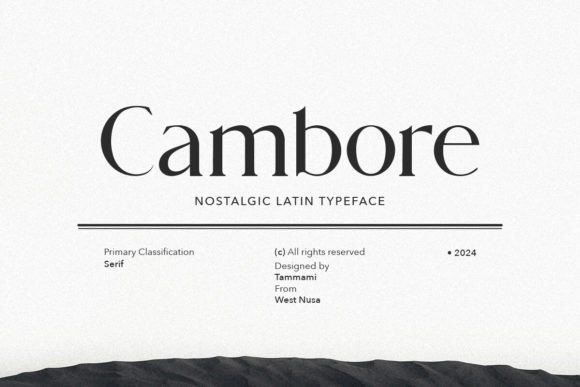
Cambore Font: Elevate Your Brand with a Touch of Classic Latin Elegance
In the world of typography, fonts play a crucial role in shaping the identity of a brand. A well-chosen font can instantly convey a sense of style, sophistication, and professionalism. If you’re looking for a font that embodies these qualities, look no further than Cambore – Latin Serif. This exquisite font seamlessly blends a touch of classic Latin serif style with a dash of retro elegance, making it an ideal choice for branding purposes.
What is Cambore Font?
Cambore Font, also known as Cambore – Latin Serif, is a stunning typeface that draws inspiration from traditional Latin serif fonts. Its unique design combines the classic elements of serif typography with a modern twist, resulting in a sophisticated and elegant font. The font features subtle rounded edges, refined lines, and a distinctive character that sets it apart from other serif fonts.
Key Features of Cambore Font
Cambore Font boasts several key features that make it an exceptional choice for branding and design projects. Some of its notable features include:
- Classic Latin Serif Style: Cambore Font pays homage to traditional Latin serif typography, evoking a sense of timelessness and sophistication.
- Retro Elegance: The font’s subtle rounded edges and refined lines give it a touch of retro charm, making it perfect for brands looking to convey a sense of nostalgia and luxury.
- Formal and Sophisticated: Cambore Font exudes a sense of formality and sophistication, making it an ideal choice for branding purposes, particularly in the luxury, fashion, and high-end industries.
- Versatile: The font is highly versatile and can be used for a wide range of design projects, from logos and wordmarks to headings and body text.
Why Choose Cambore Font for Your Brand?
With so many fonts available, why should you choose Cambore Font for your brand? Here are a few compelling reasons:
- Unique Identity: Cambore Font’s distinctive character and elegant design help create a unique identity for your brand, setting you apart from competitors.
- Professionalism: The font’s sophisticated and formal appearance conveys a sense of professionalism, making it perfect for businesses looking to establish a strong brand presence.
- Emotional Connection: Cambore Font’s retro elegance and classic Latin serif style evoke a sense of nostalgia and luxury, helping to create an emotional connection with your target audience.
- Scalability: The font is highly scalable and can be used for various design projects, from business cards to billboards.
How to Use Cambore Font Effectively
To get the most out of Cambore Font, here are some tips on how to use it effectively:
- Pair it with Other Fonts: Combine Cambore Font with other fonts to create a unique typography system that reflects your brand’s personality.
- Use it for Headings and Titles: Take advantage of Cambore Font’s elegant design by using it for headings and titles, creating a strong visual hierarchy in your design.
- Experiment with Colors: Try pairing Cambore Font with different colors to create a distinct brand identity that resonates with your target audience.
Cambore Font in the Digital Age
In today’s digital landscape, fonts play a crucial role in shaping the online presence of a brand. Cambore Font is optimized for digital use, ensuring that it looks stunning on various devices and platforms.
- Web-Friendly: Cambore Font is designed to be web-friendly, making it perfect for use on websites, blogs, and other online platforms.
- Responsive Design: The font’s elegant design and clear letterforms ensure that it remains legible even at small sizes, making it ideal for responsive design.
- Social Media: Use Cambore Font to create engaging social media content that stands out from the crowd and reflects your brand’s unique personality.
Cambore – Latin Serif is an exquisite font that offers a unique blend of classic Latin serif style and retro elegance. Its sophisticated and formal appearance makes it an ideal choice for branding purposes, particularly in the luxury, fashion, and high-end industries. With its versatility, scalability, and emotional connection, Cambore Font is sure to elevate your brand and help you establish a strong visual identity.
- What is Cambore Font? Cambore Font, also known as Cambore – Latin Serif, is a stunning typeface that draws inspiration from traditional Latin serif fonts.
- What are the key features of Cambore Font? Cambore Font boasts several key features, including classic Latin serif style, retro elegance, formality, and sophistication.
- Why choose Cambore Font for my brand? Cambore Font offers a unique identity, professionalism, emotional connection, and scalability, making it an ideal choice for businesses looking to establish a strong brand presence.